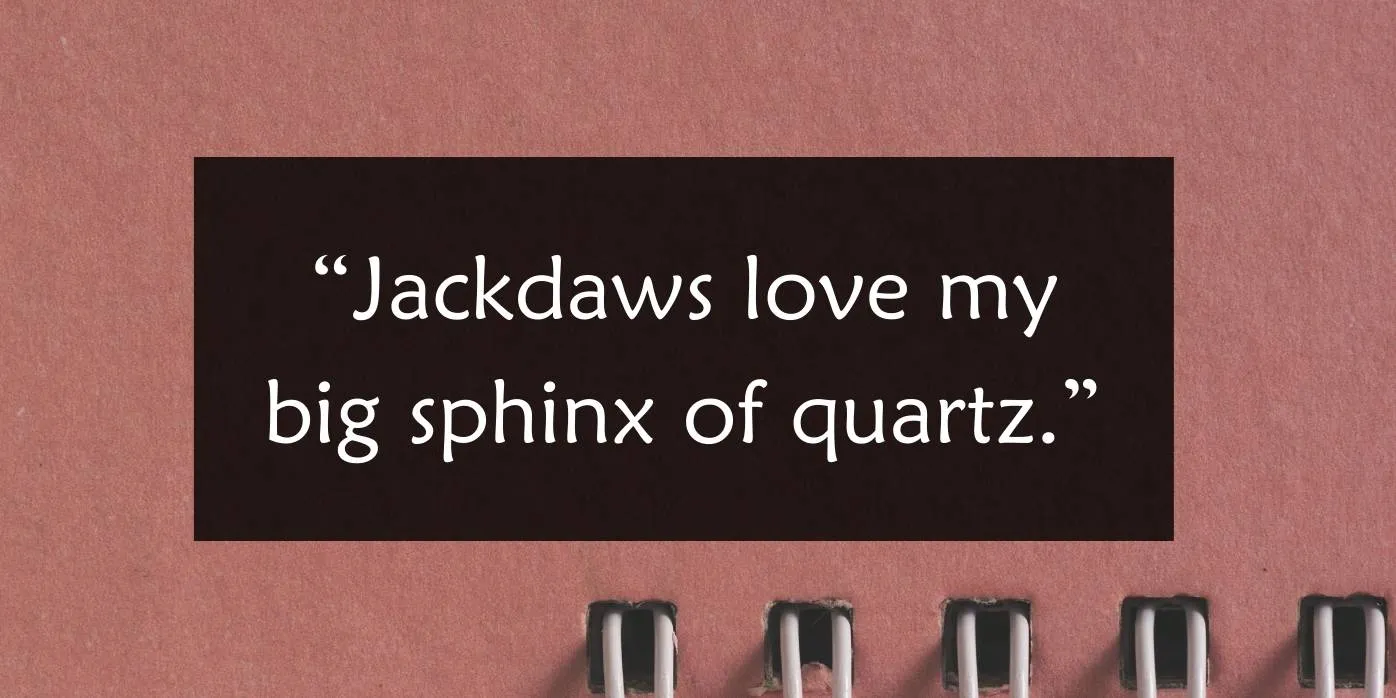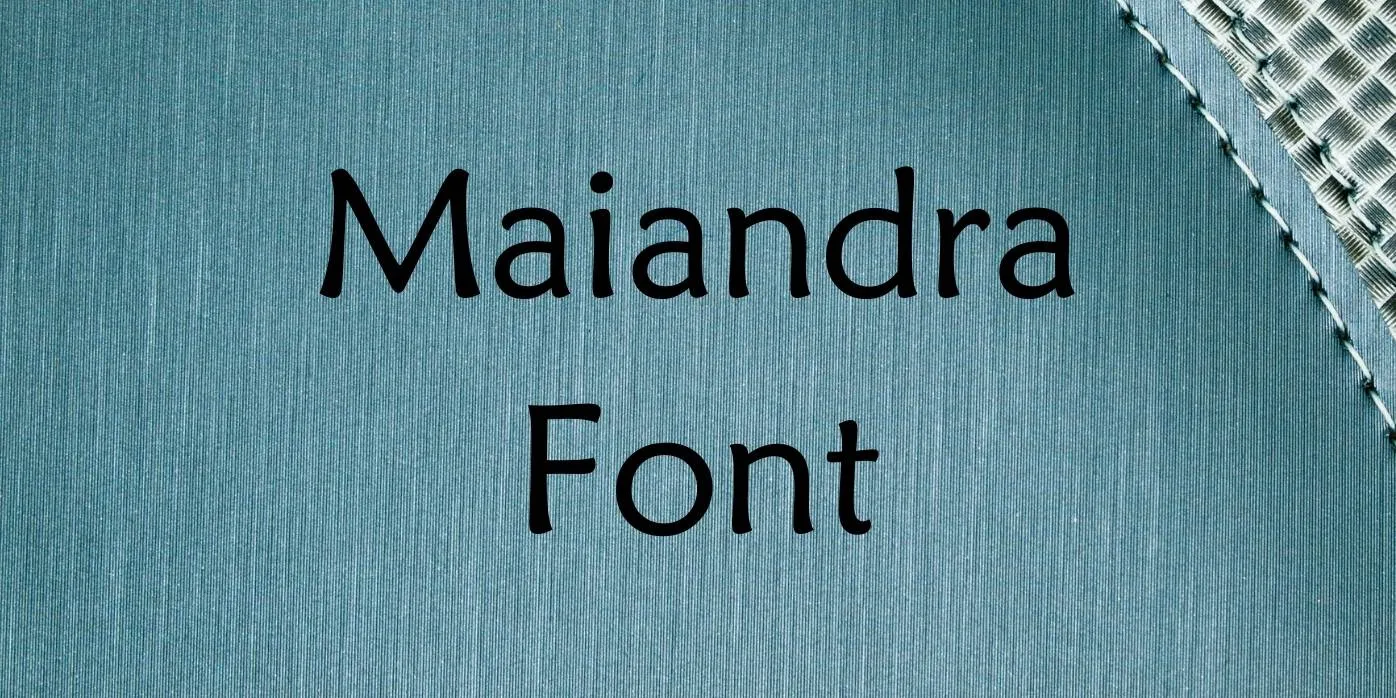
Maiandra Font
Today, we introduce a very famous and unique typeface named Maiandra Font. This classy typeface was designed by a very elegant designer named Dennis Pasternak. This cute font family belongs to the Sans Serif category. One main thing about this typeface is that it is available in straight-line characters.